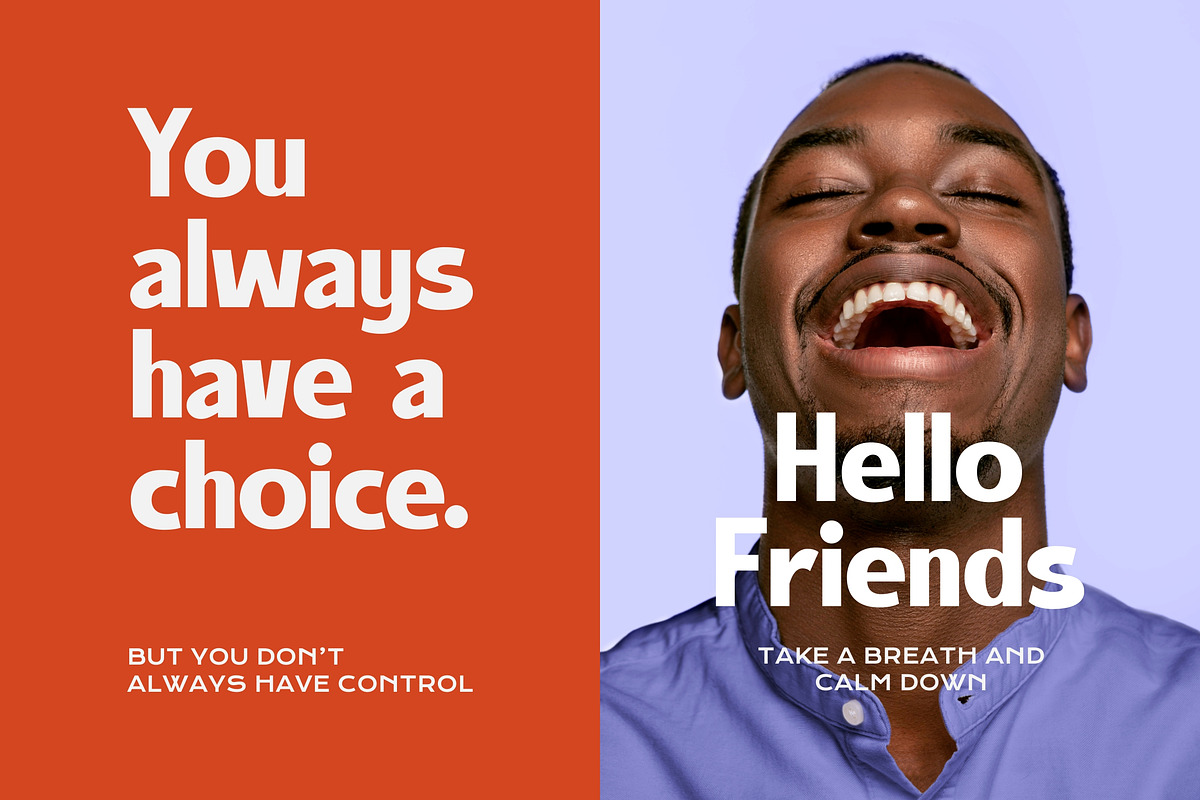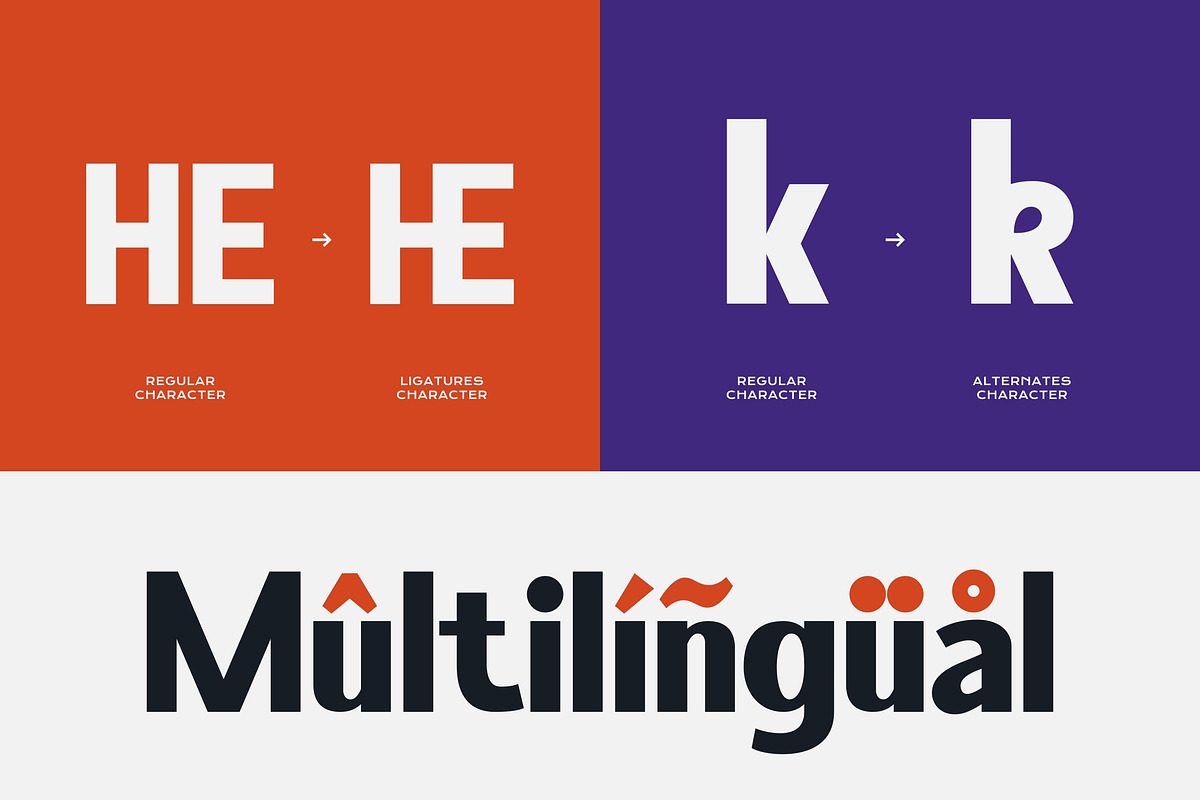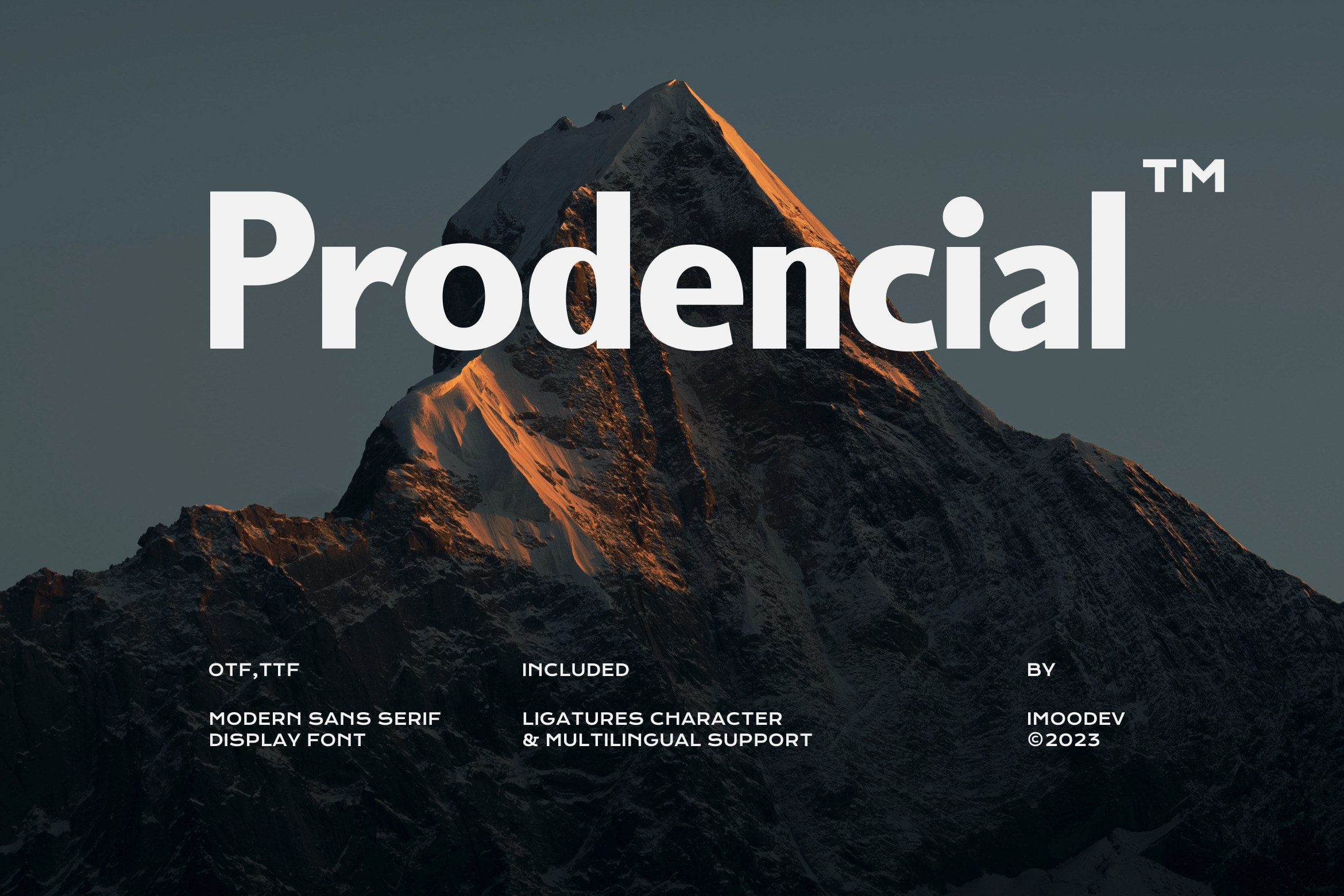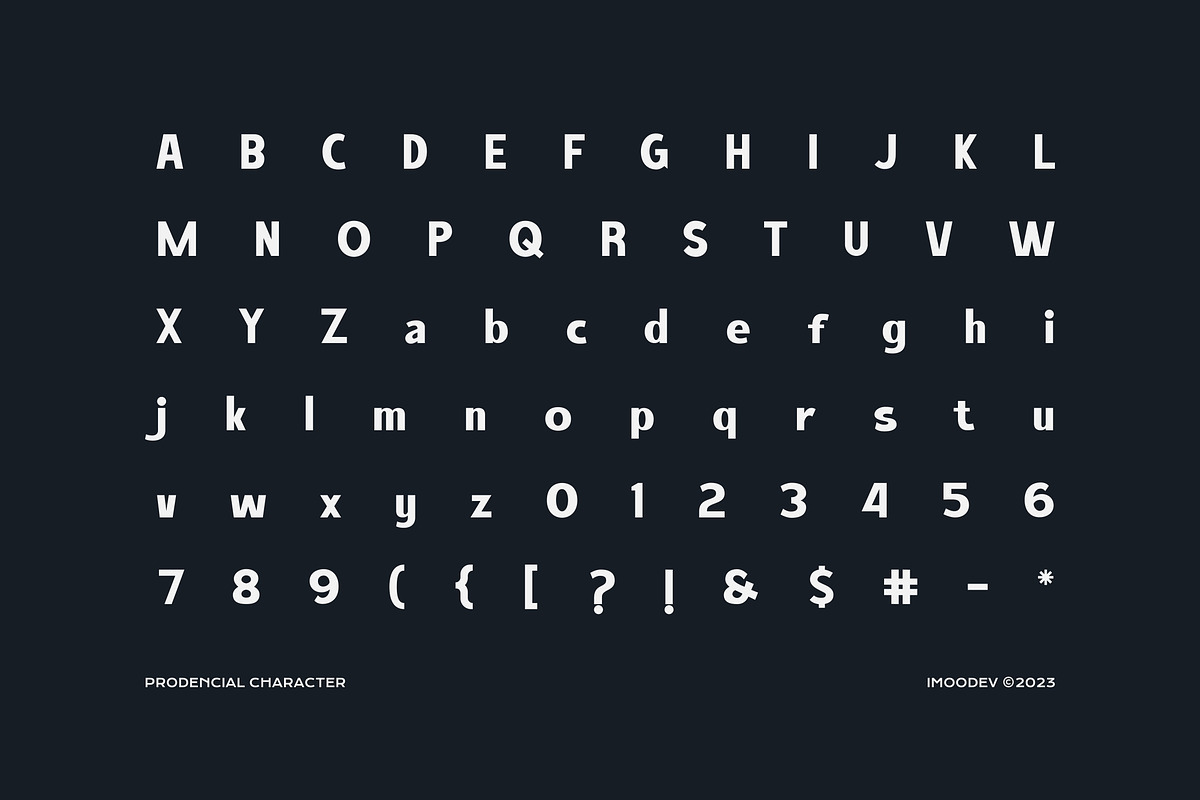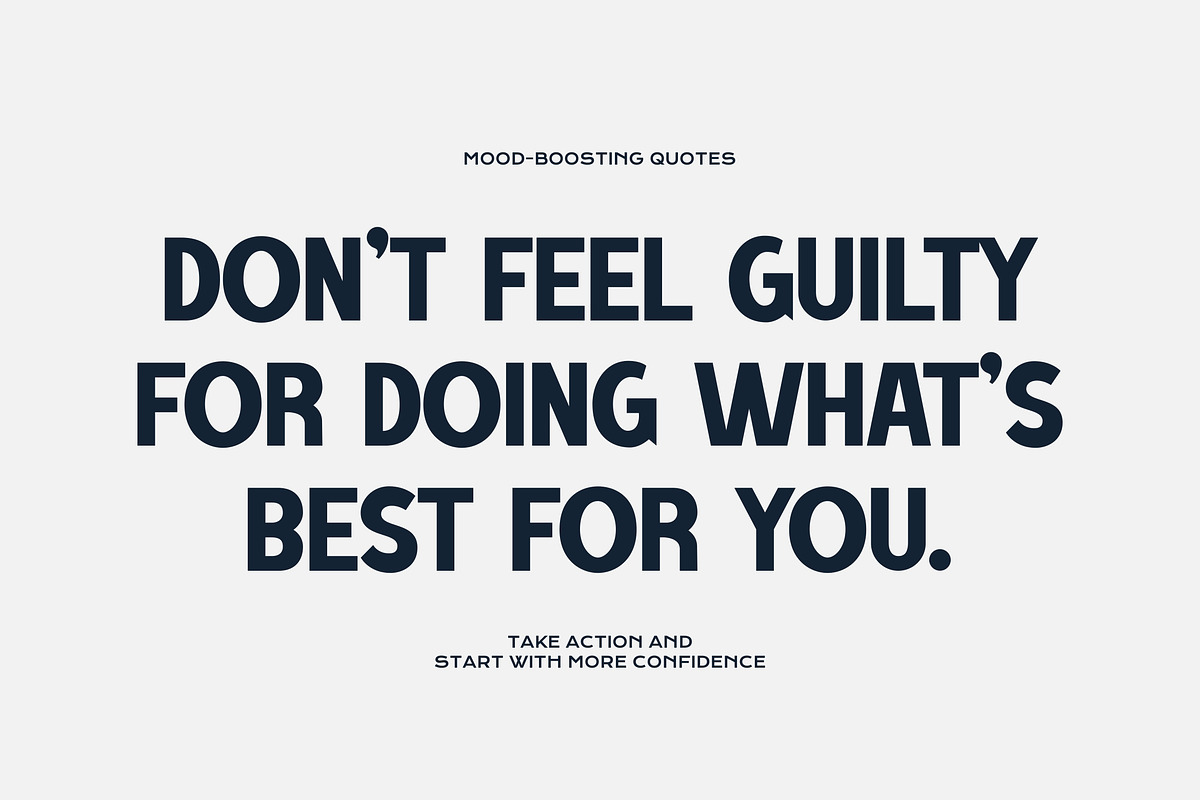
Prodencial - Sans Serif Typeface
Prodencial is a clean modern sans serif typeface with a minimalistic and functional design. The letterforms are bold and straightforward with balanced proportions and a subtle geometric influence.
With its clear, no frills appearance, Prodencial is a perfect fit for professional, corporate, and digital projects that prioritize readability and a crisp aesthetic. Use it confidently in user interfaces, websites, branding systems, presentations, and any application where clarity and modern style are essential.
- Uppercase and Lowecase Characters.
- Numerals and Punctuations.
- Alternates and Ligatures.
- Multilingual Support.